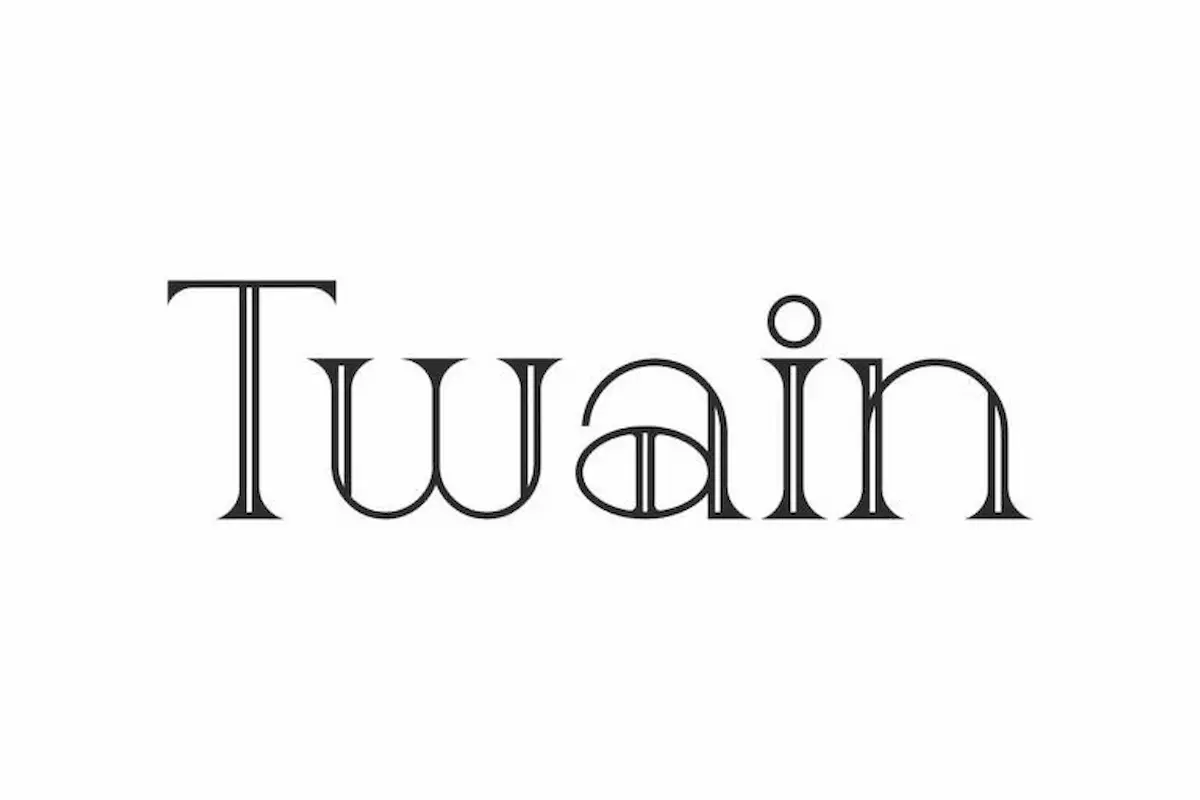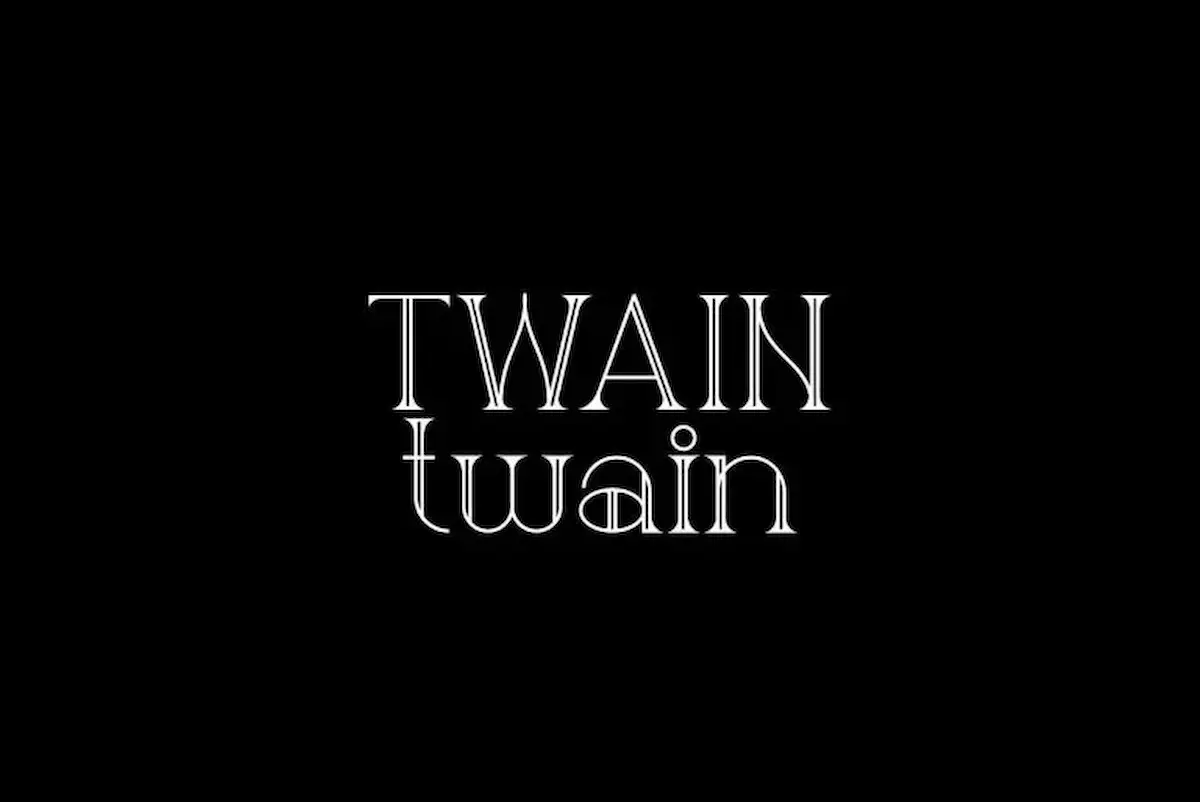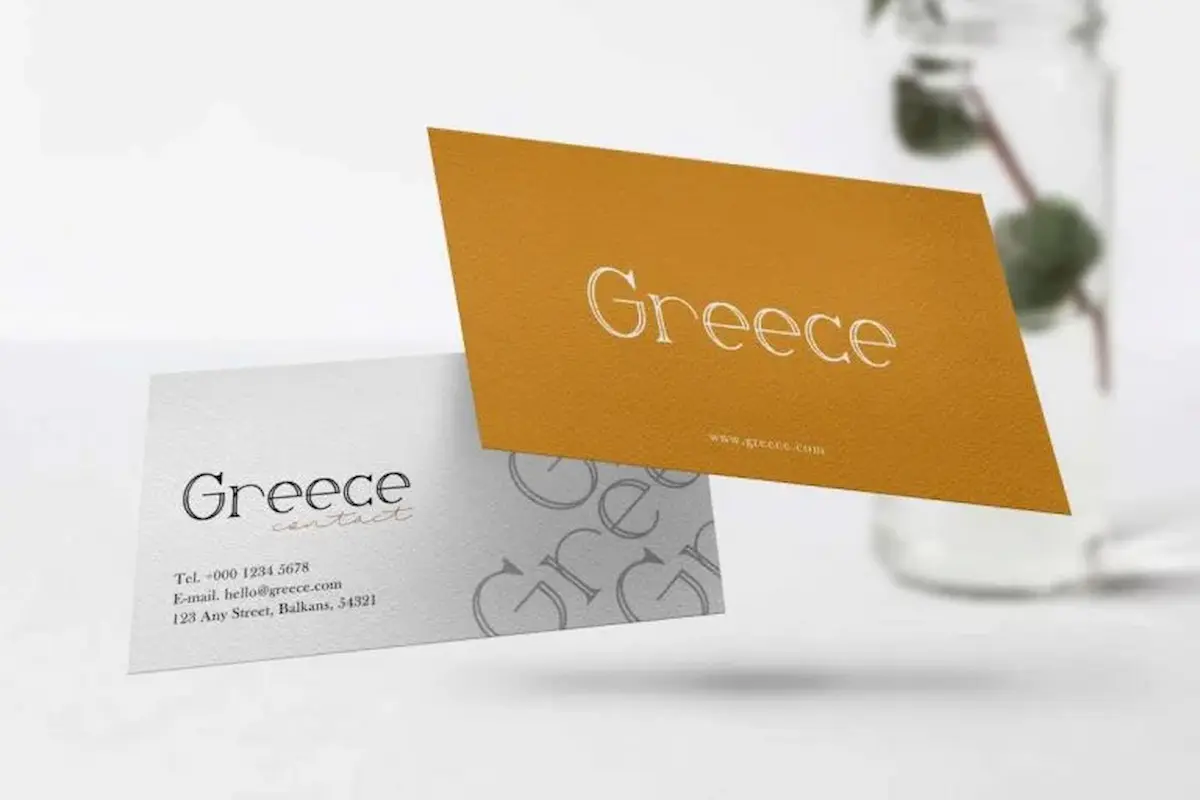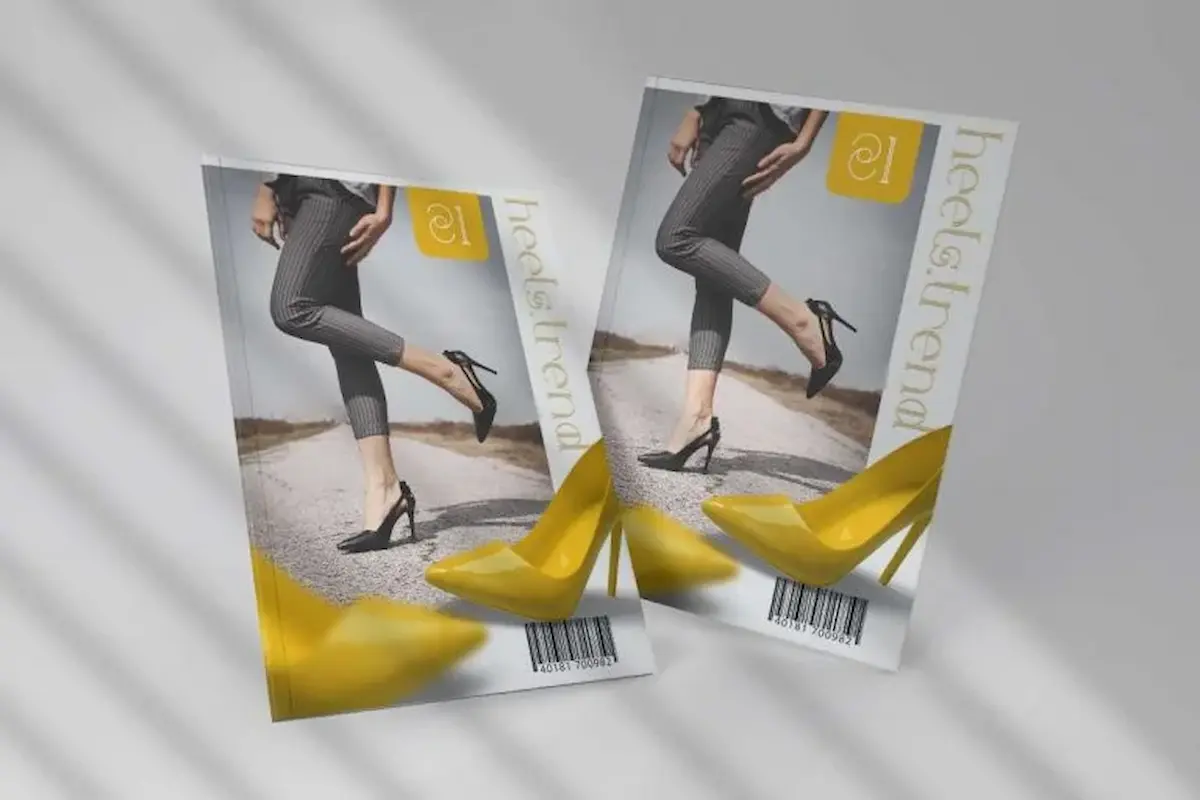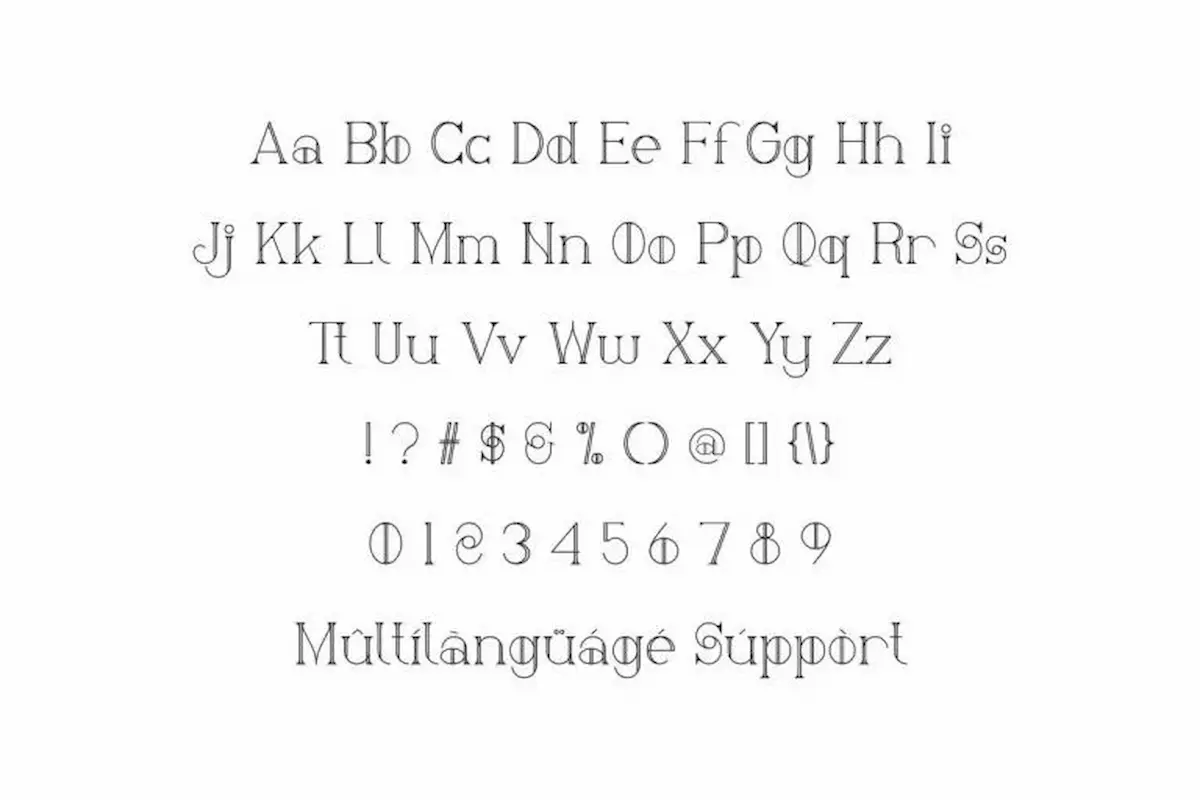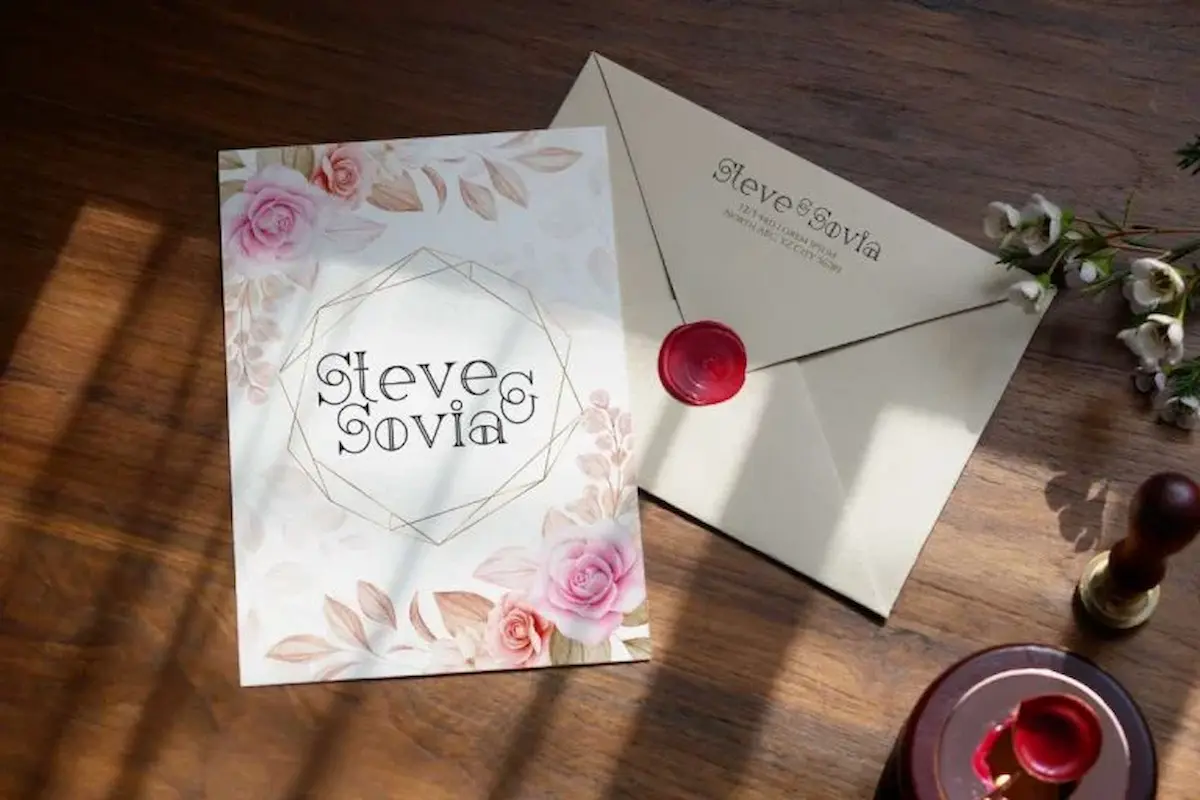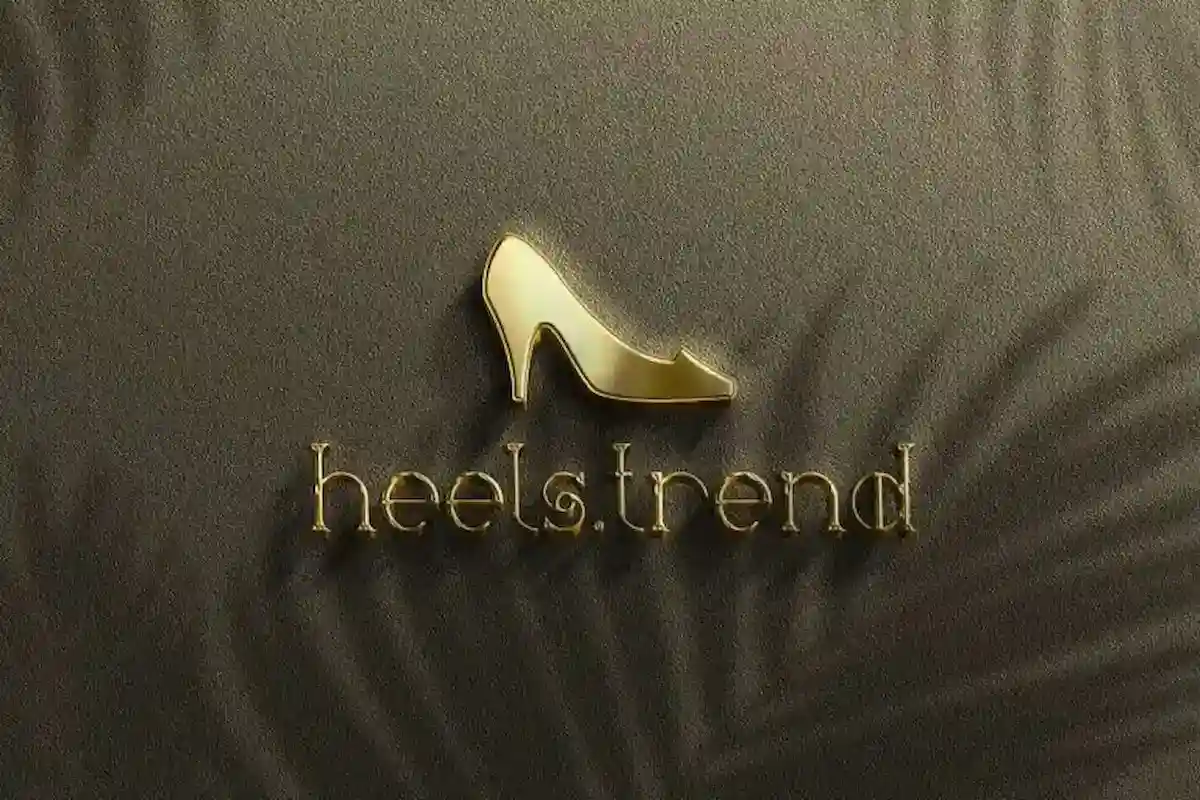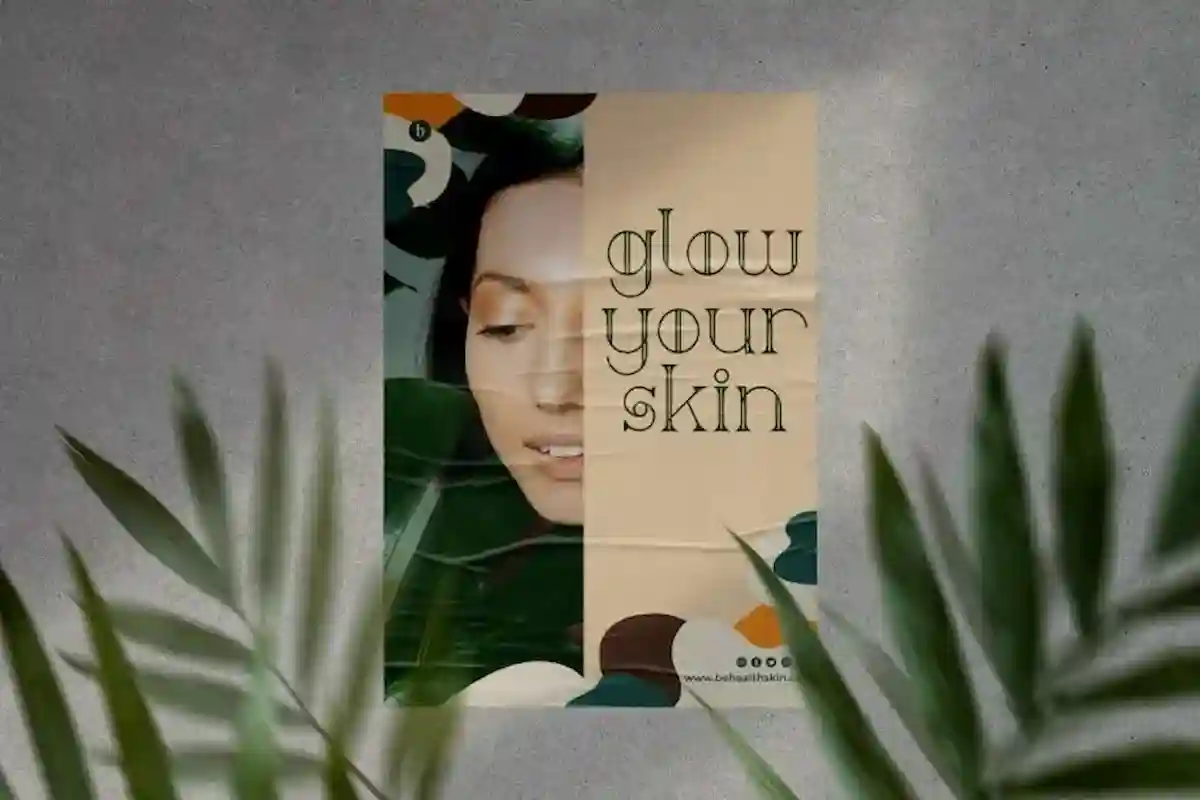
Twain Font is a unique display font by NihStudio inspired from Hip and Artdeco era, made in 2021. Twain Font will great for many industries : magazine, fashion, cosmetic, wedding, florist, or vintage projects.
Twain Font has unique and standout letter shape. The font was Handcrafted on 2021 here in our Studio-Indonesia. Twain Font will be great for any projects (require extended license) including : branding, logo, stationery, business card, signage, flyer, brochure etc.